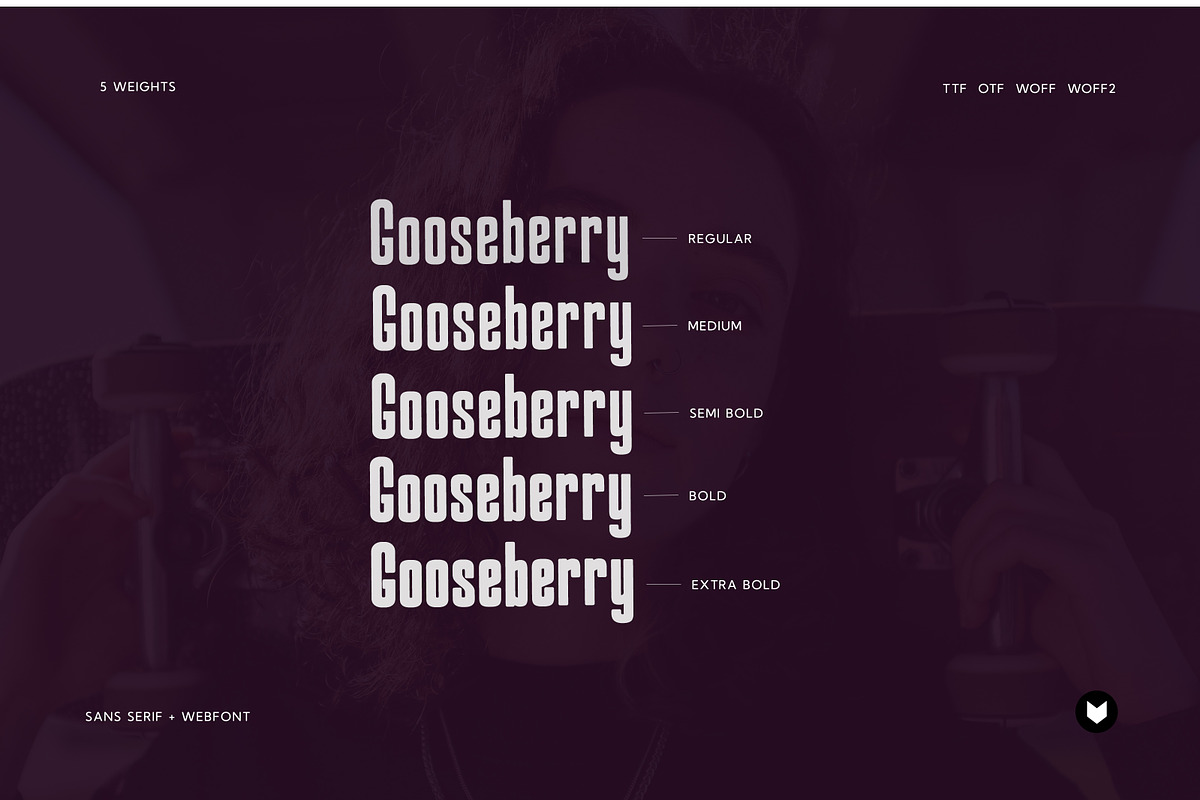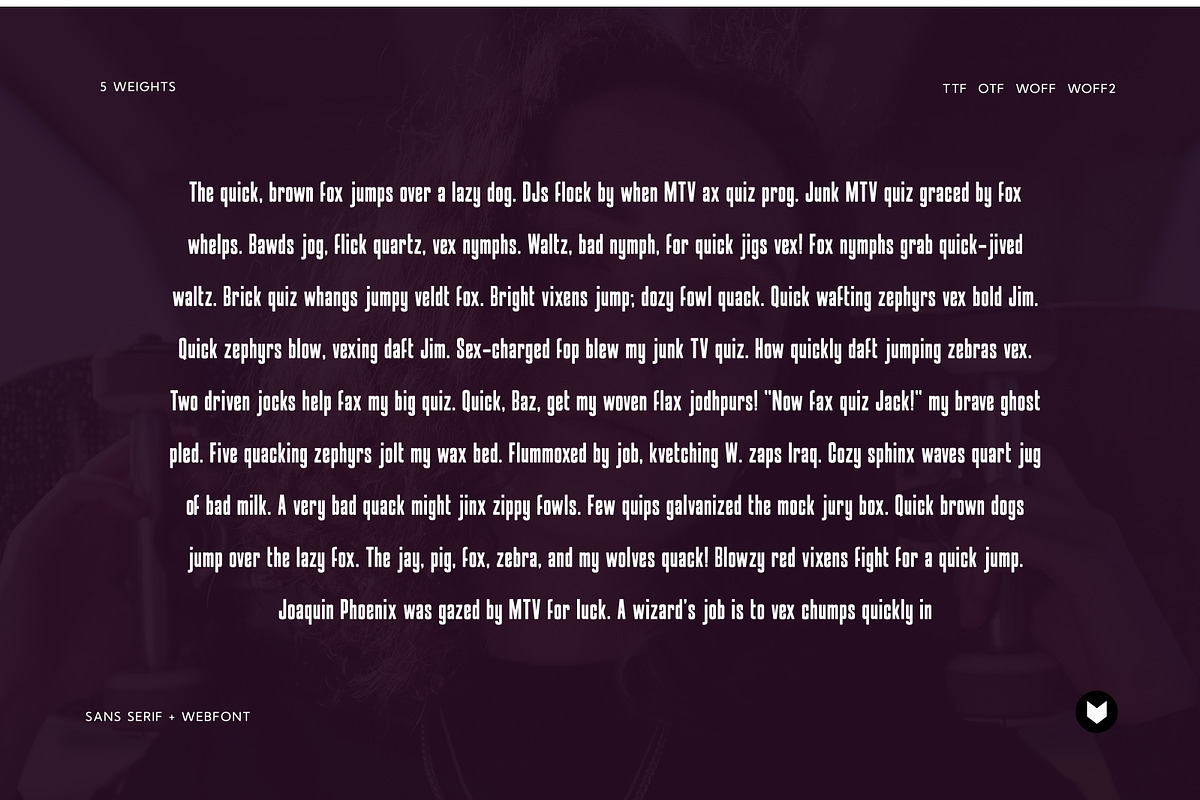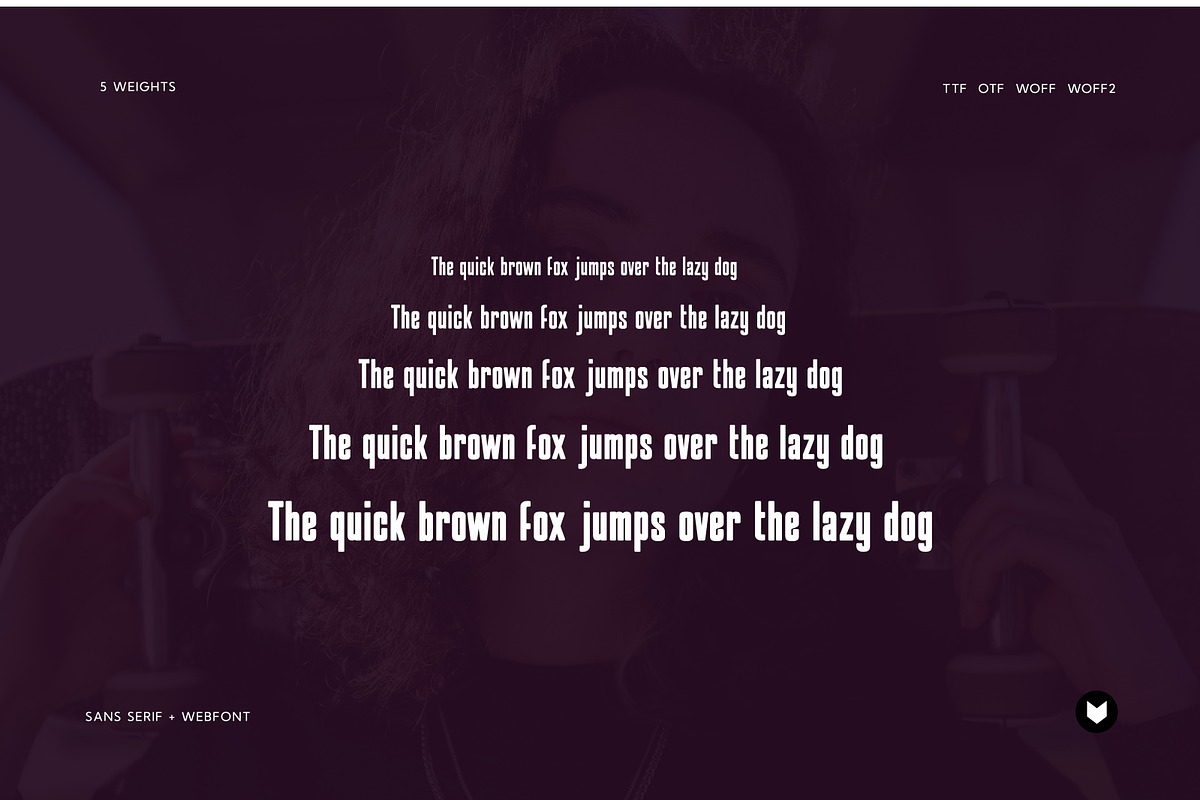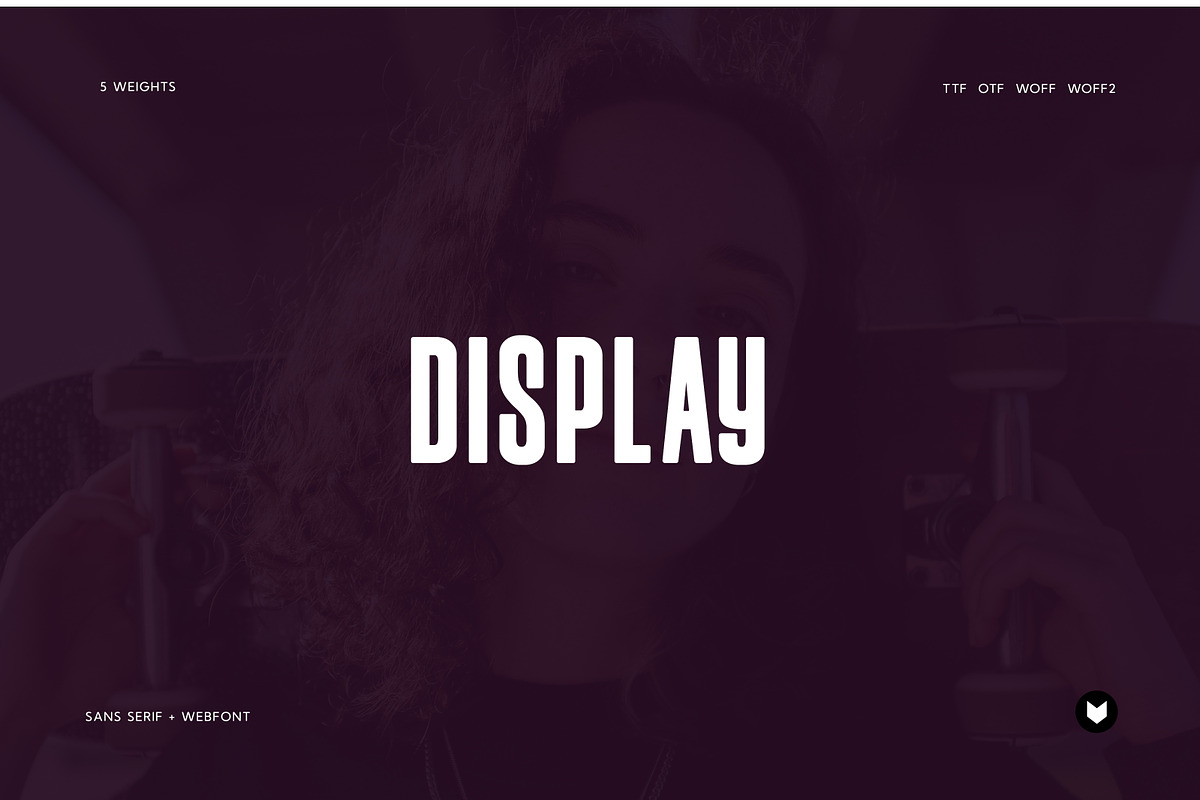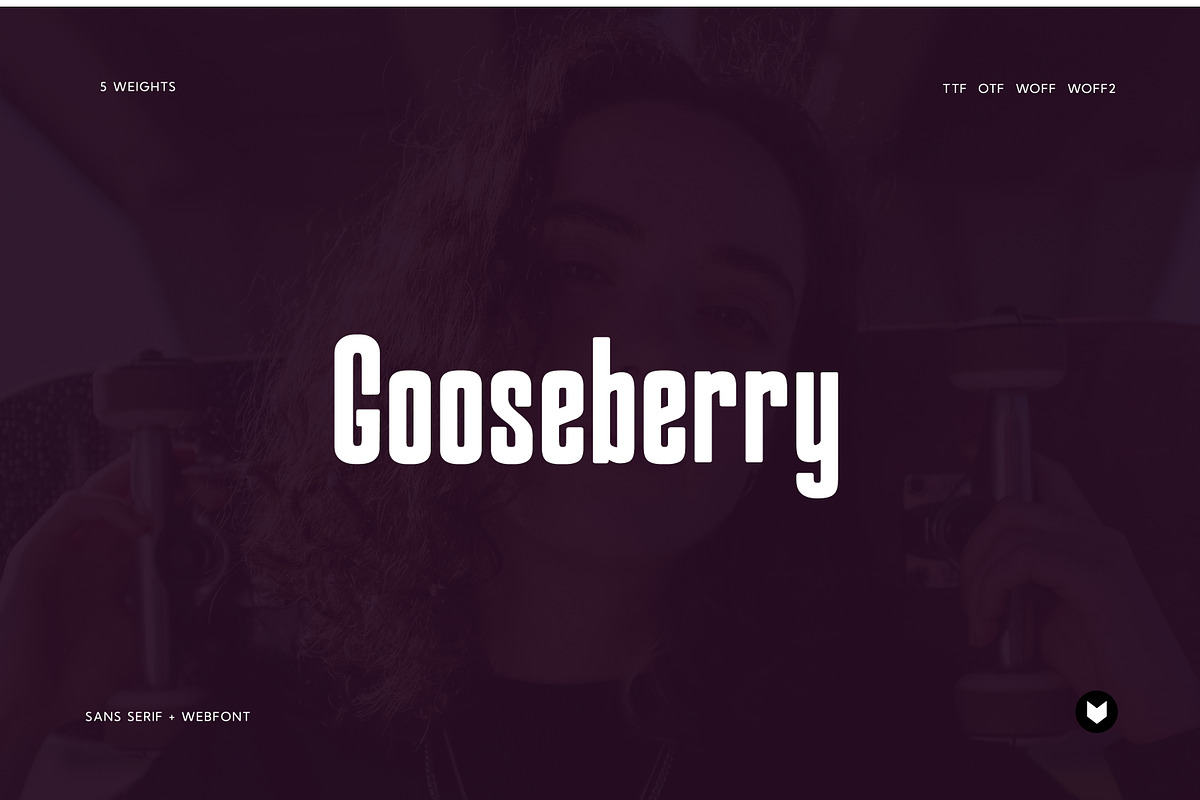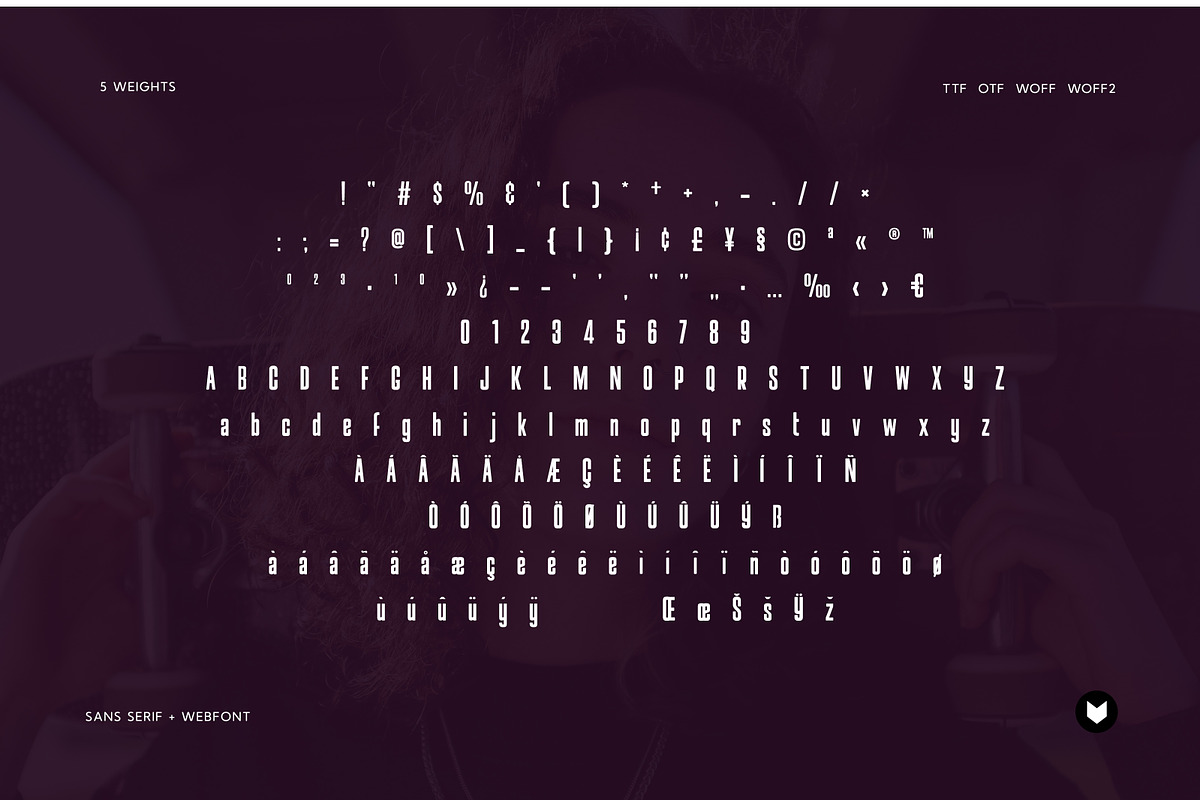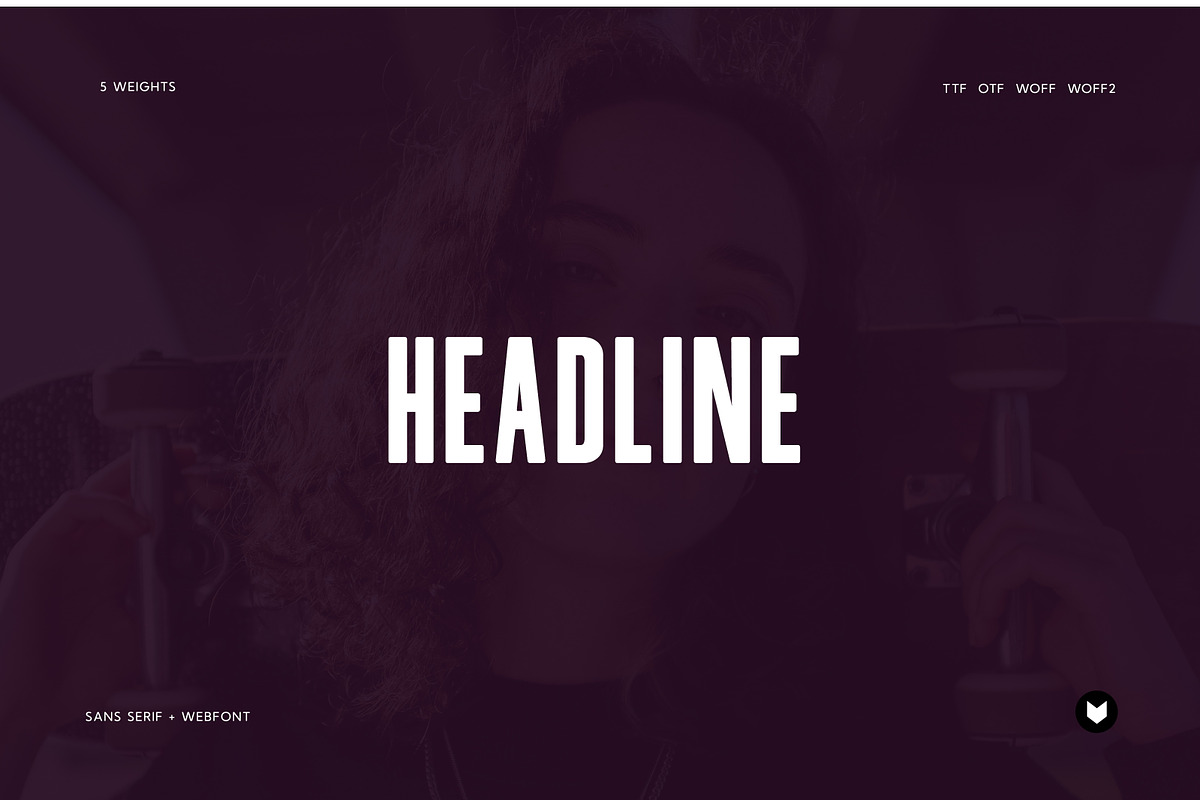
Gooseberry - Bold Typeface + Webfont
Gooseberry - Branding Typeface + Webfont
Gooseberry is a Minimalist Modern Elegant Typeface with Web-fonts. It's a very versatile font that works great in large and small sizes. Gooseberry would perfect for branding, logos, headlines, Captions. or simply as a stylish text overlay to any background image.